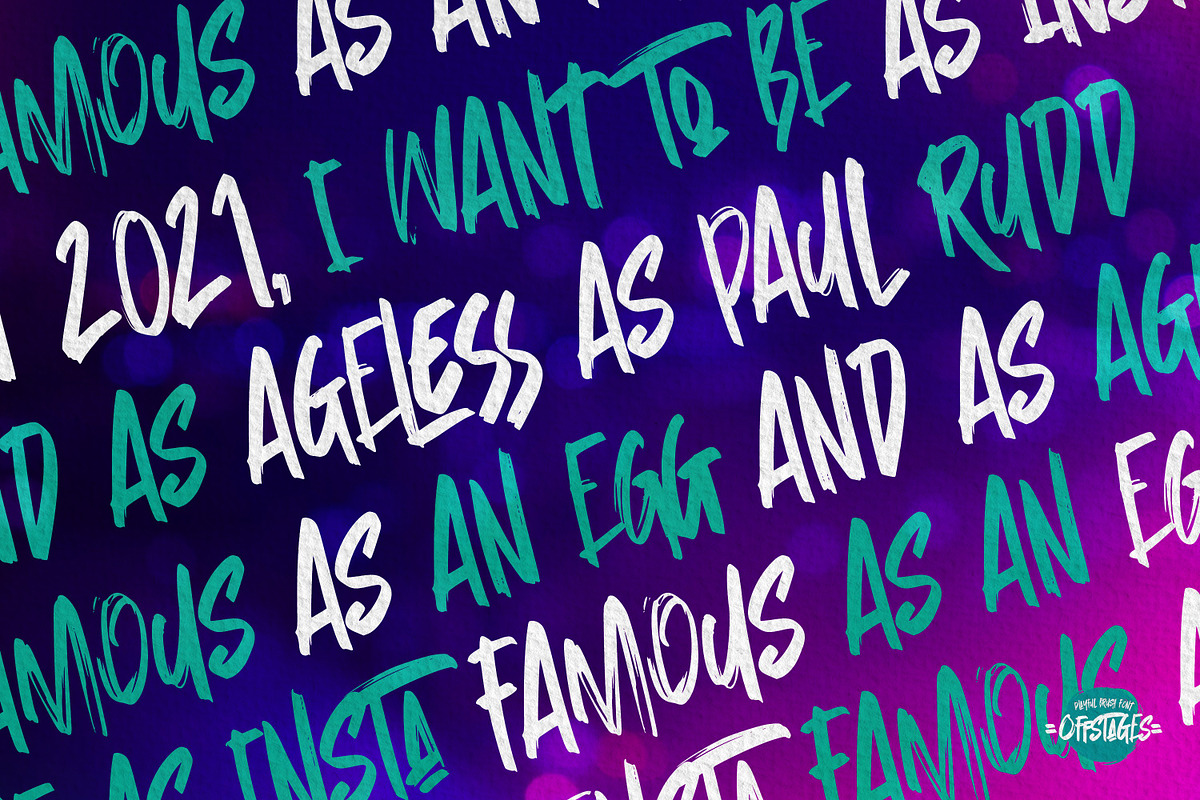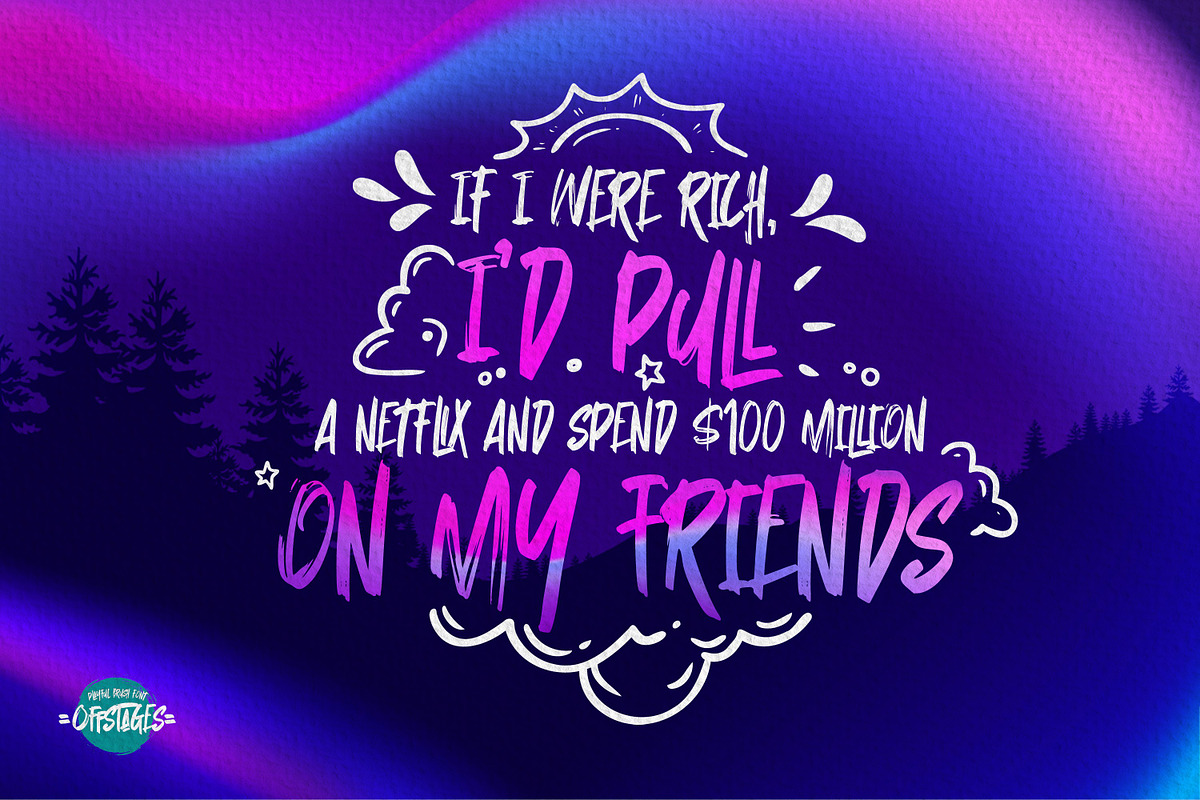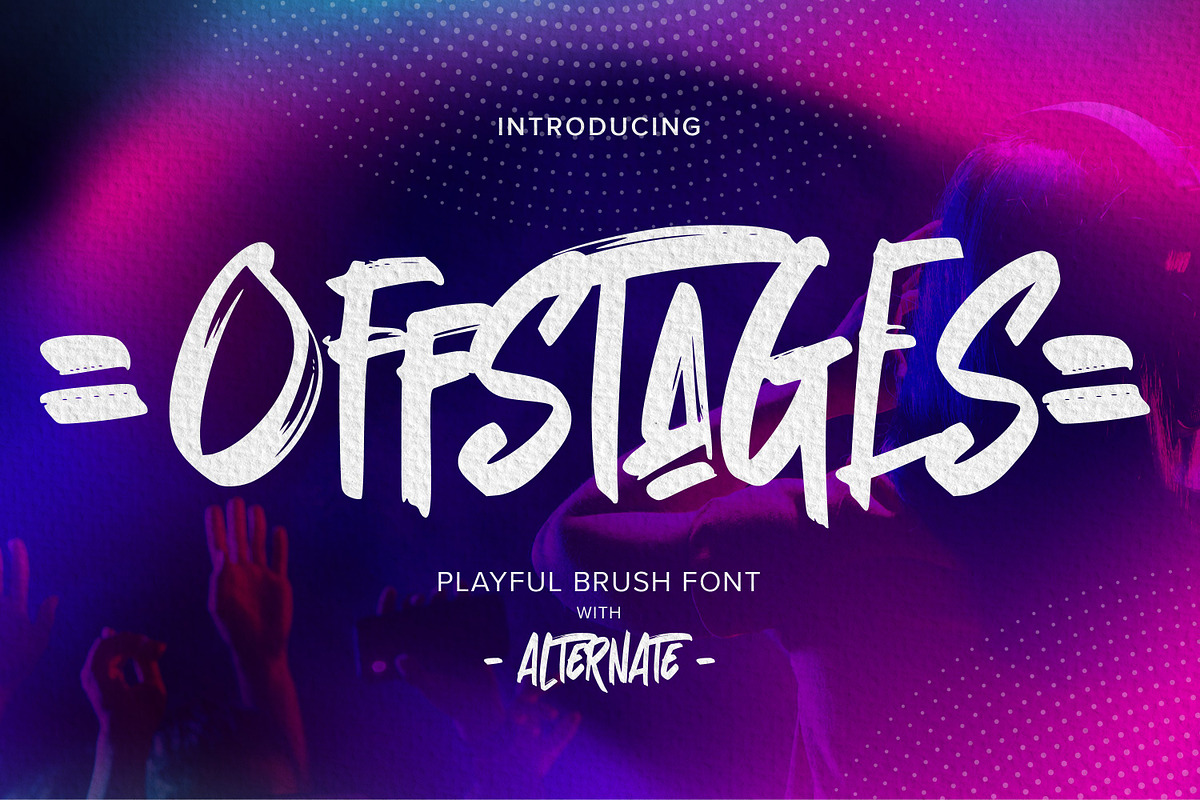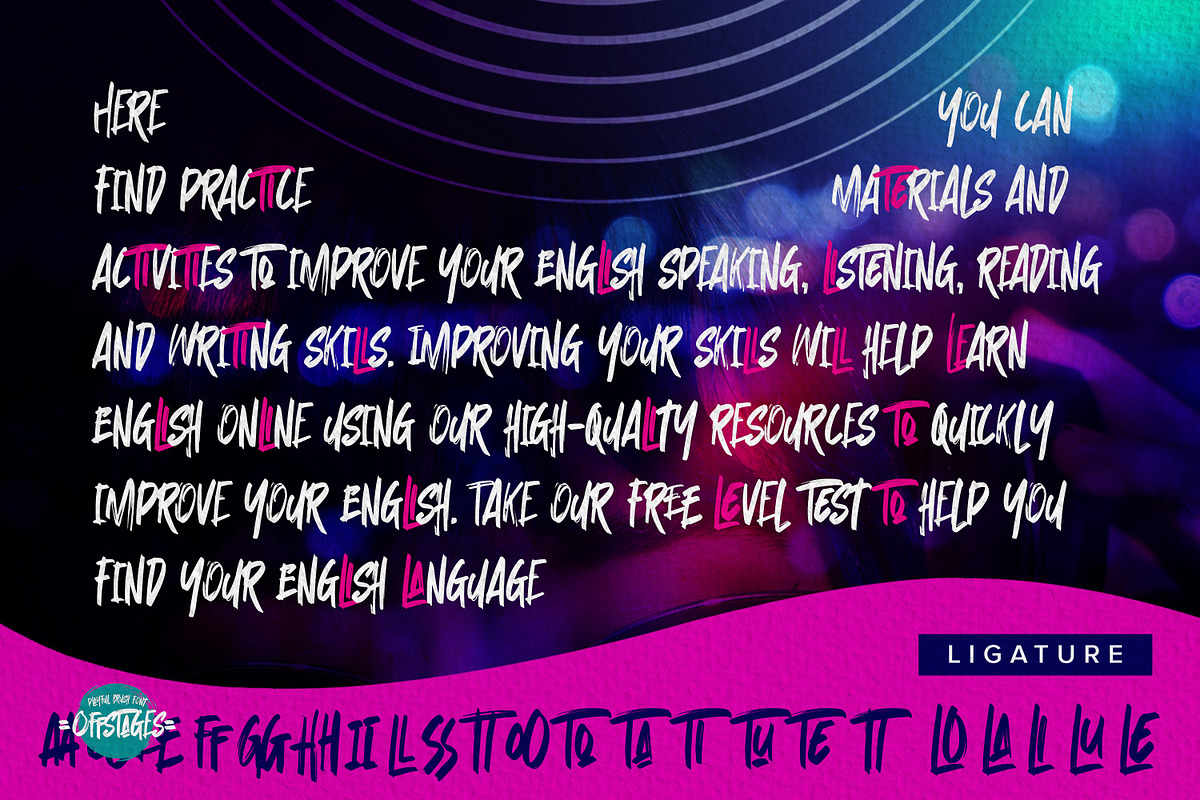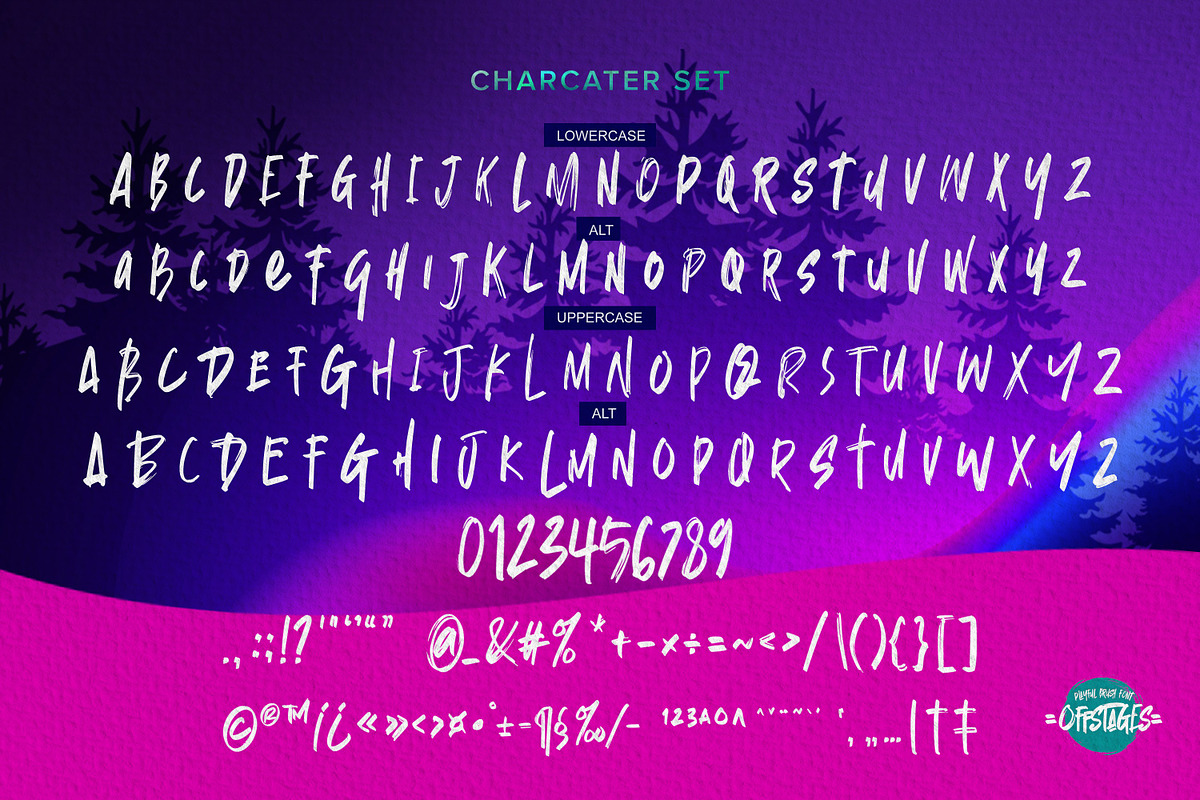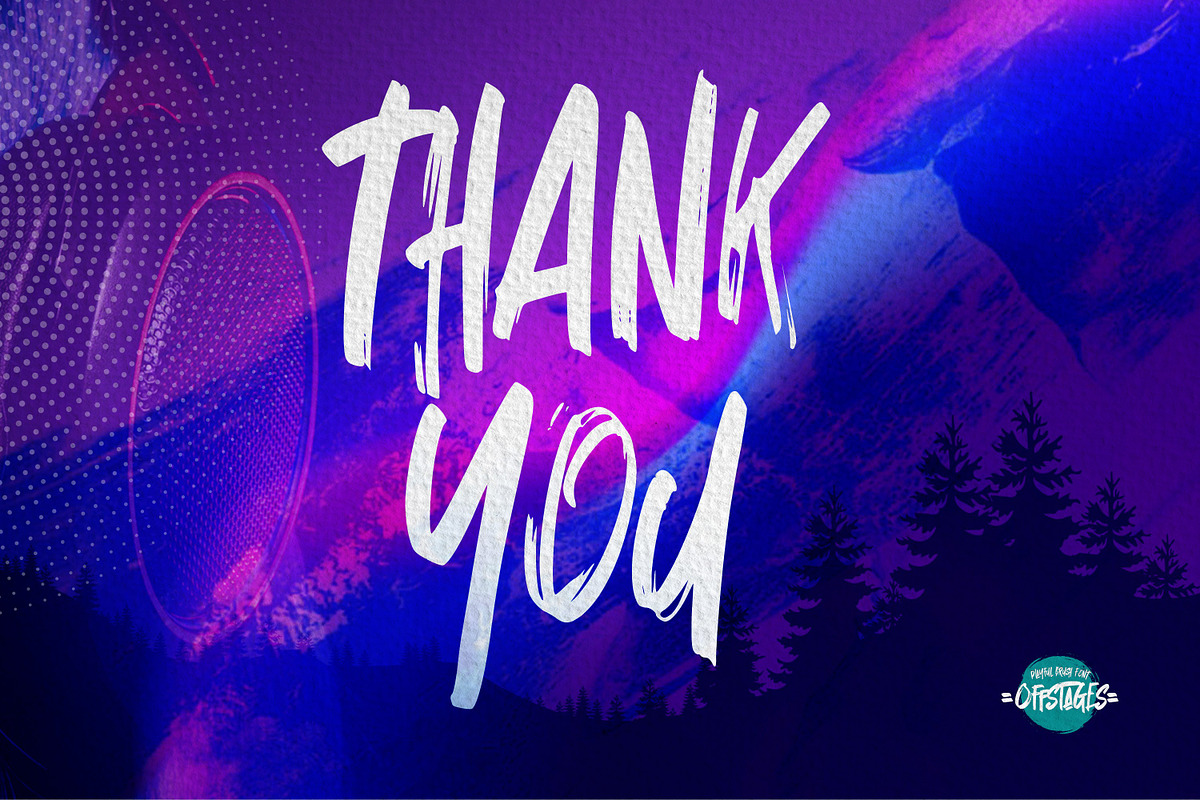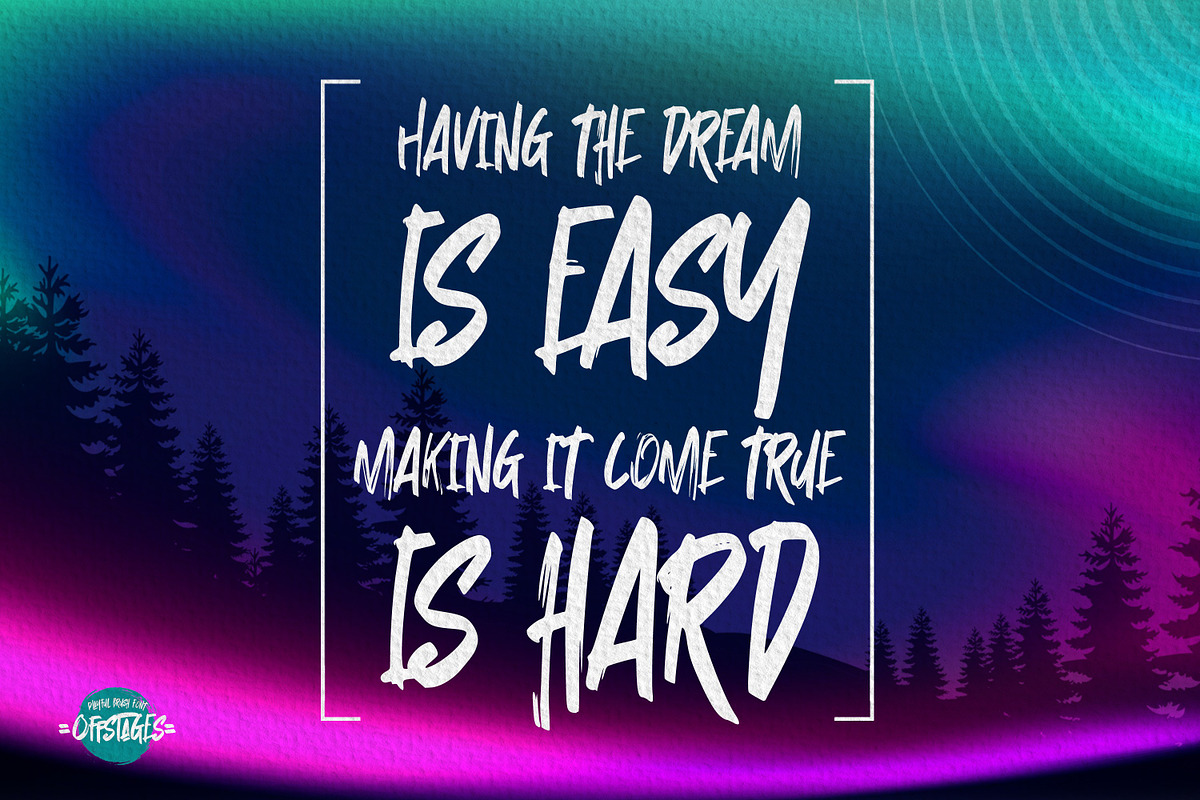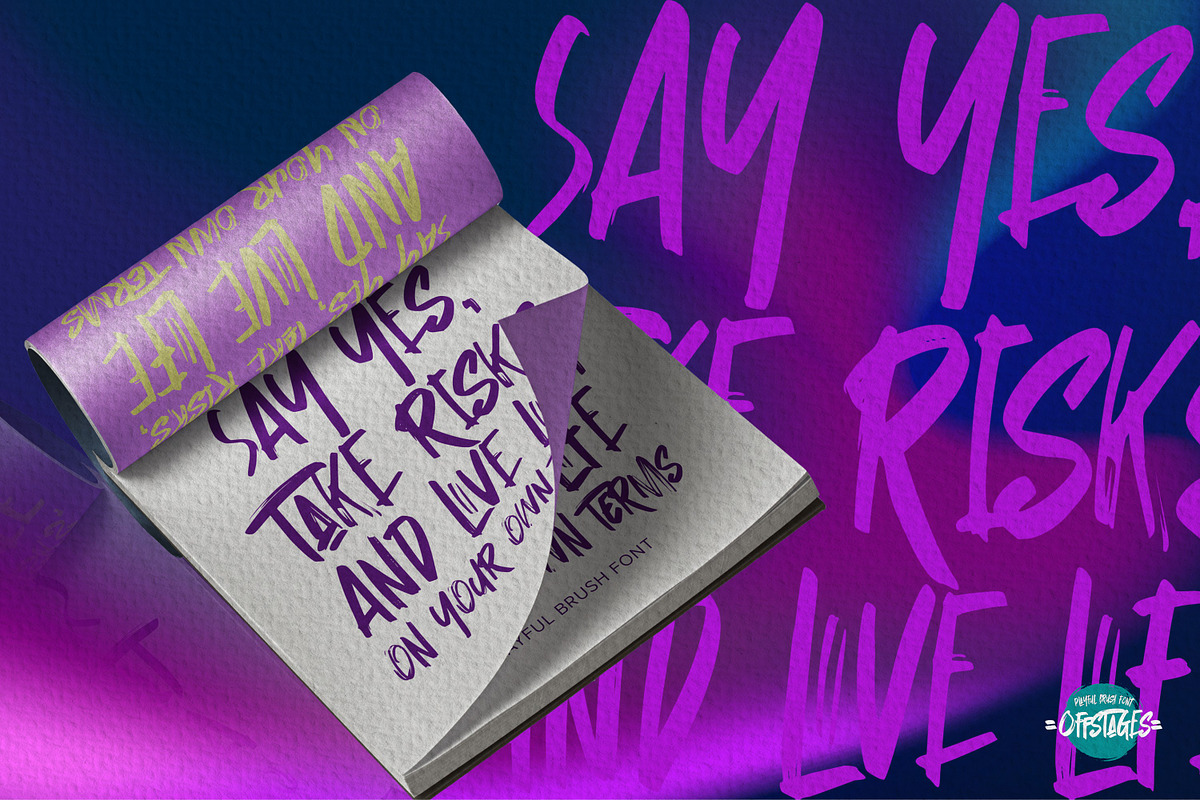
Offstages - Strong Brush Script
Offstages - Strong Brush Script is a Authentic brush script that is written casually and quickly. Letters are made with Procreate. Then trace down into vector format, and carefully crafted into a typeface. That is why Offstages has rough, authentic and strong characteristic more natural look. You can activate Ligature OpenType panel,
Offstages Perfect for designs,branding projects, Logo design, Quotes product packaging and another Project thet require cool strong brush font.